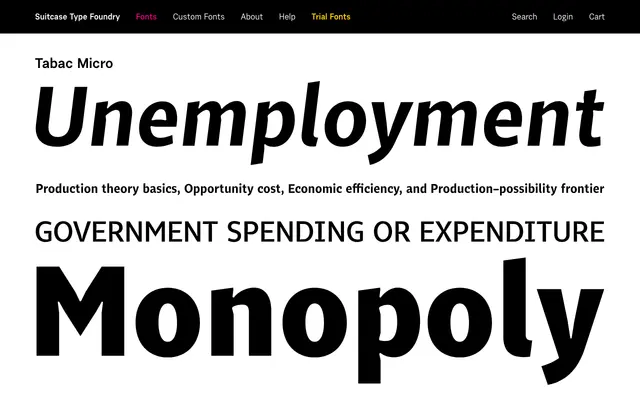
A micro-optimised serif from the Tabac superfamily, designed for small-size and demanding print environments.
Tabac Micro sits within Suitcase Type Foundry's extensive Tabac superfamily alongside Tabac, Tabac Sans, Tabac Slab and Tabac Mono. Its optical adjustments target very small print sizes where standard text faces begin to lose definition, making it suited to footnotes, captions and dense information design. The superfamily structure allows consistent typographic voice across a range of scales and applications.
Part of the Tabac superfamily, Tabac Micro is specifically optimised for small-size legibility, placing it firmly in the optical serif subcategory designed for constrained reading environments.